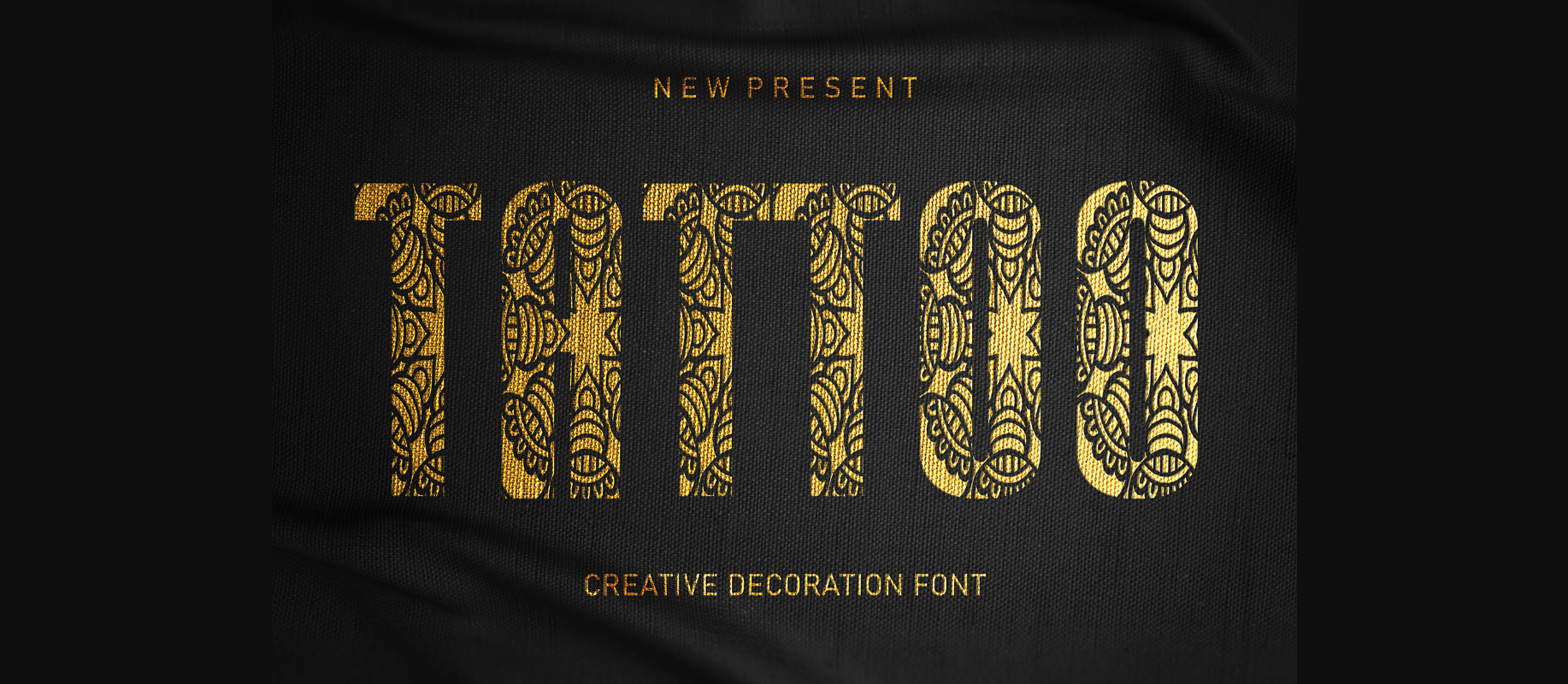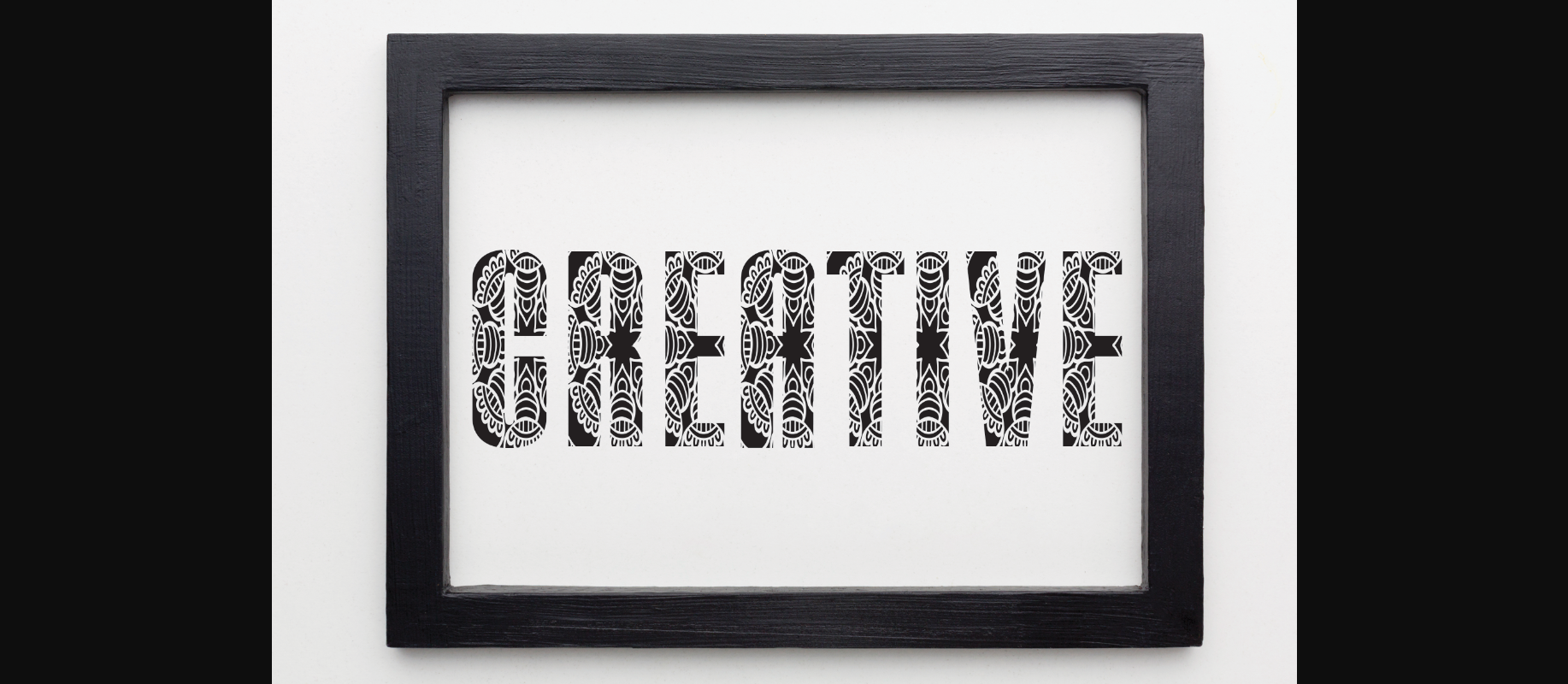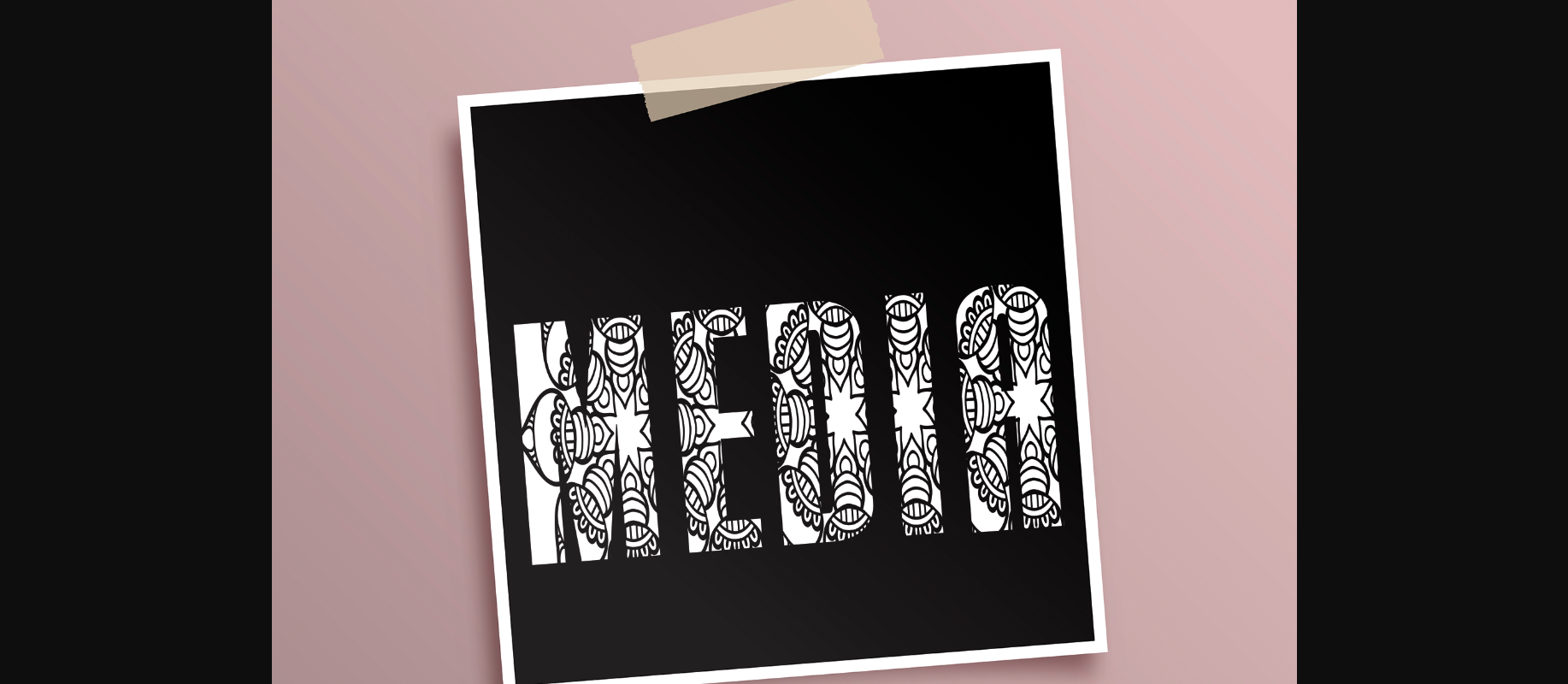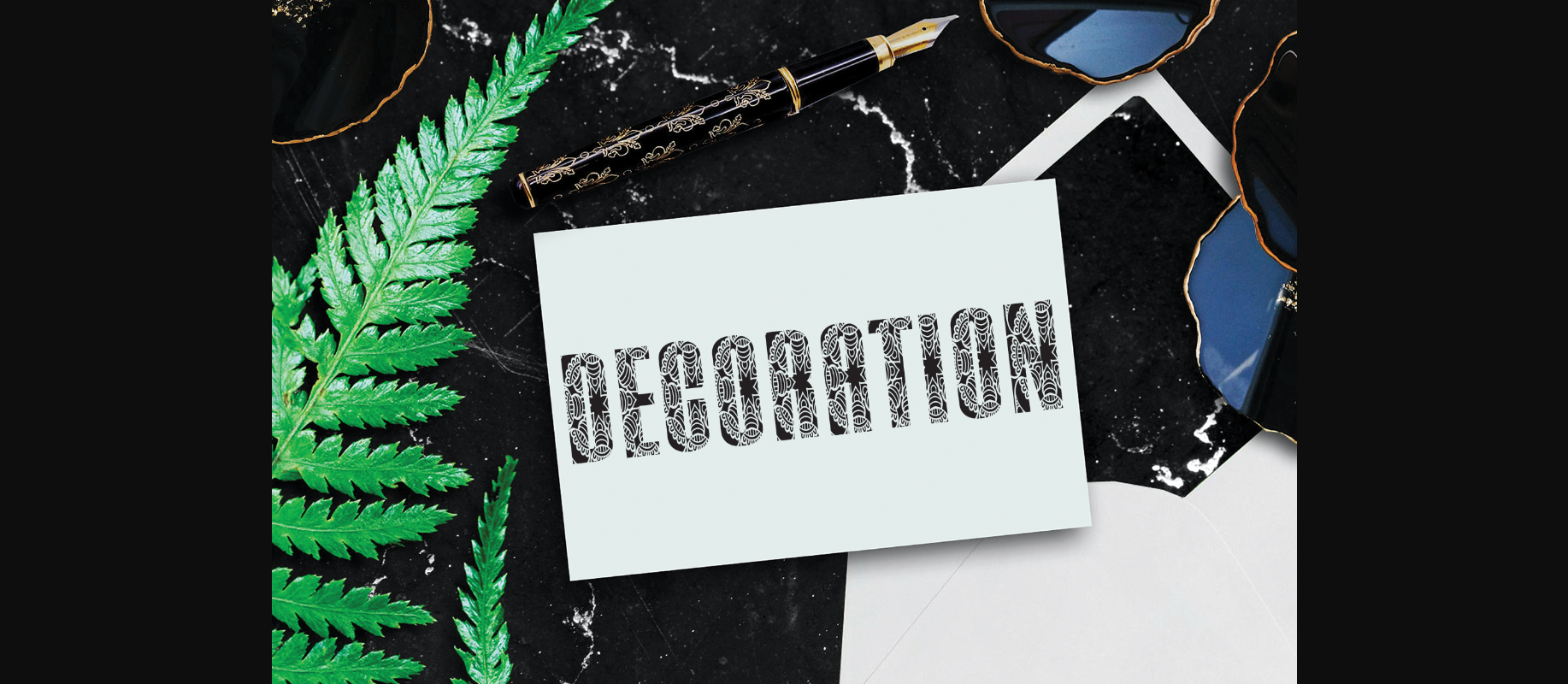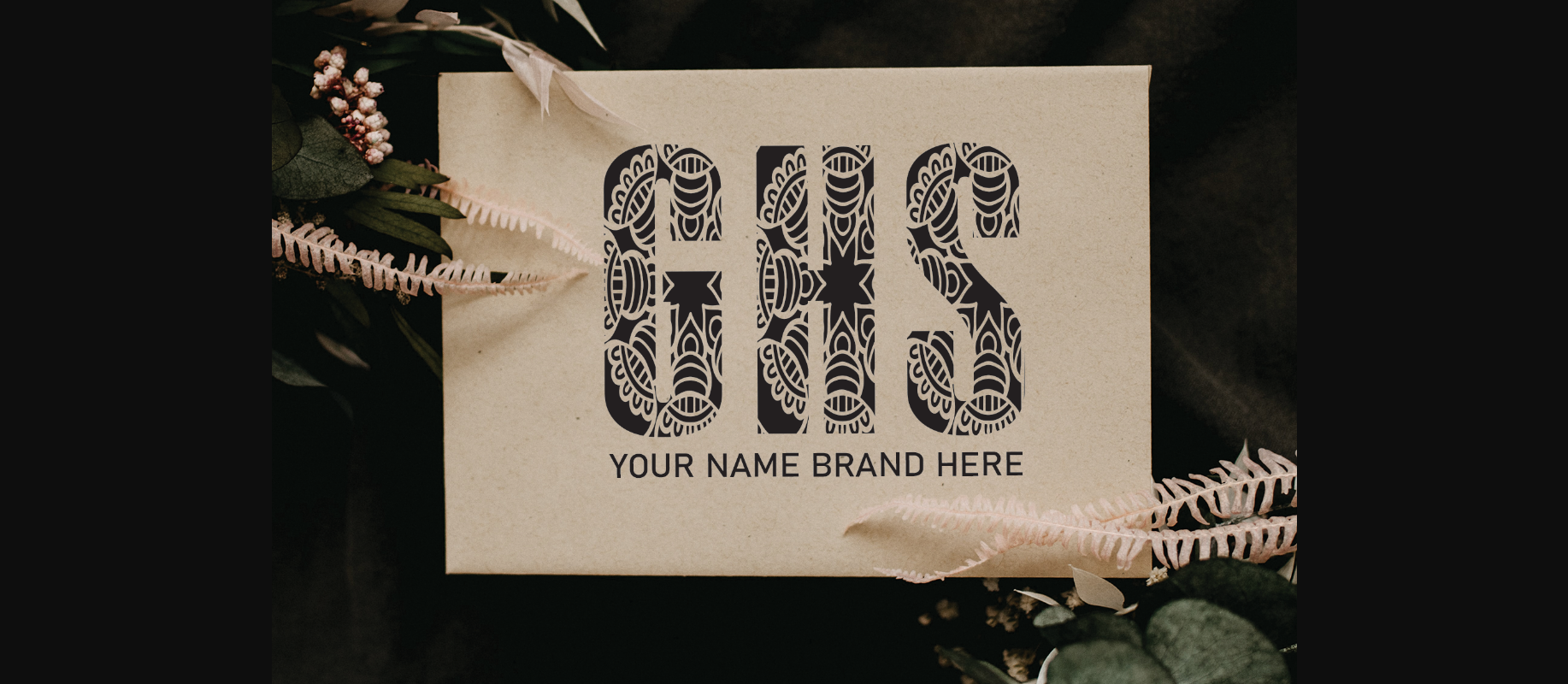
About Tattoo Font
Tattoo is a creative decoration font that you can use for wall displays, wedding invitations, social media post logos, advertisements, product packaging, product designs, labels, photography, watermarks, invitations, and stationery.